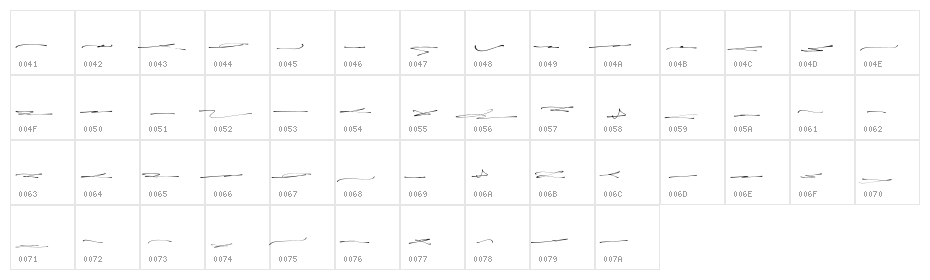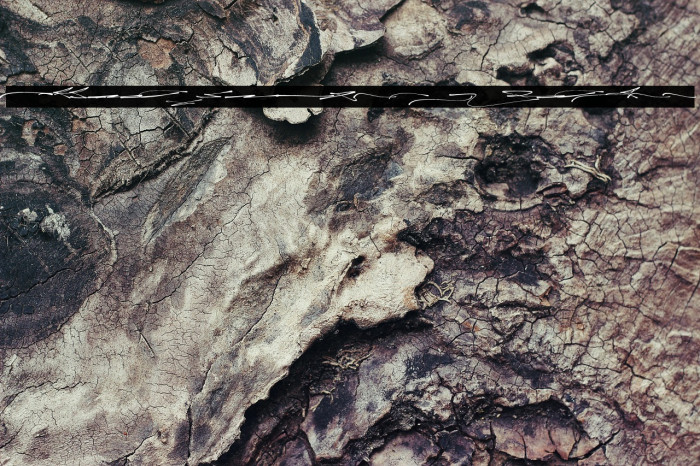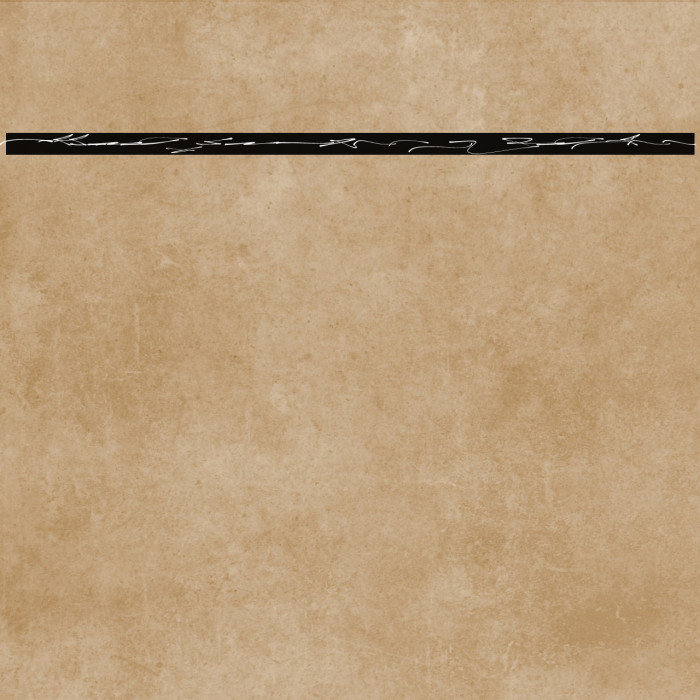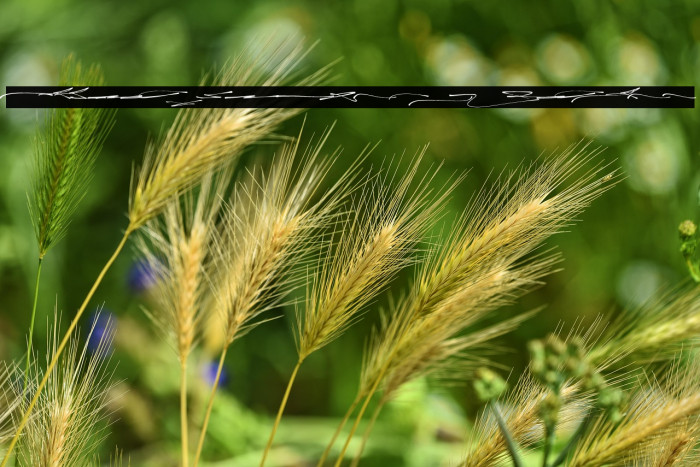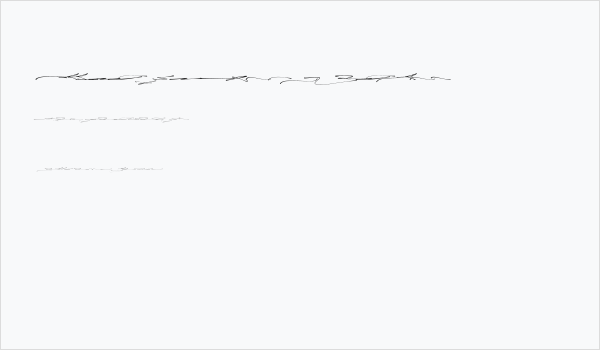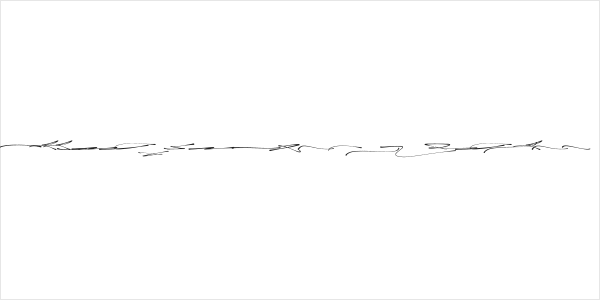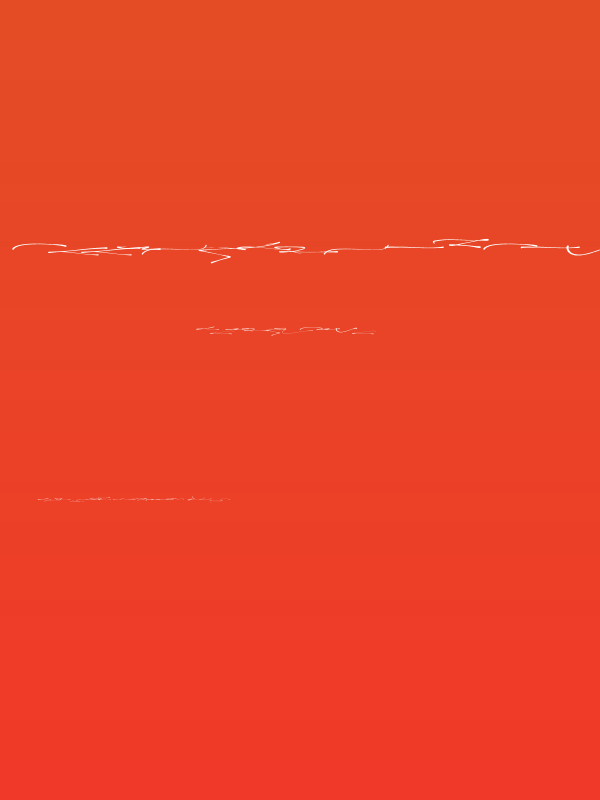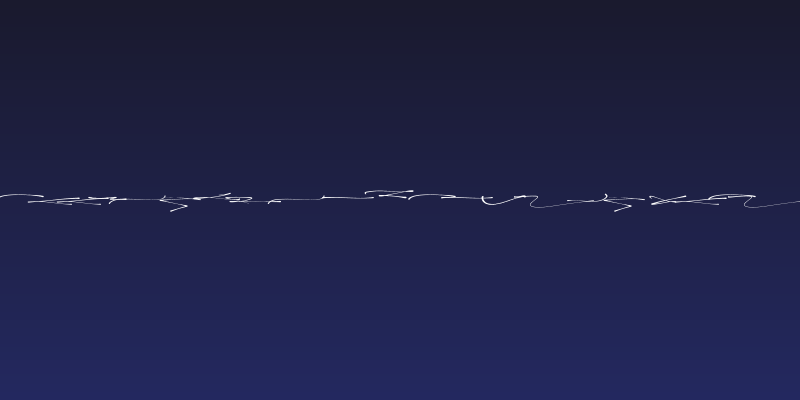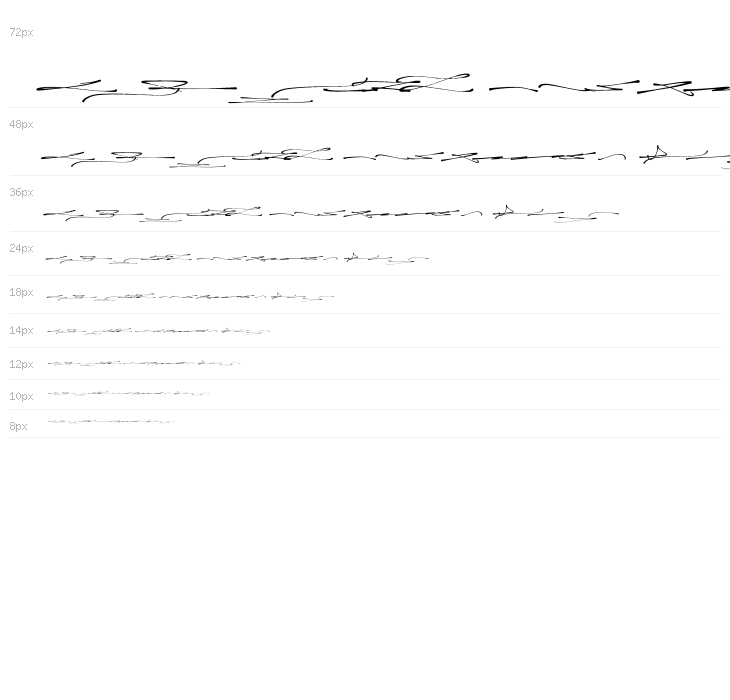
Allington Swash Regular Font
Allington Swash Regular Description
This font features an elegant and flowing script style, characterized by its intricate swashes and flourishes. The letters are interconnected with graceful curves, creating a sense of movement and sophistication. The design is reminiscent of classic calligraphy, with a modern twist that adds a unique flair. The strokes are thin and delicate, emphasizing the artistic nature of the font. It is well-suited for decorative purposes where a touch of elegance is desired.